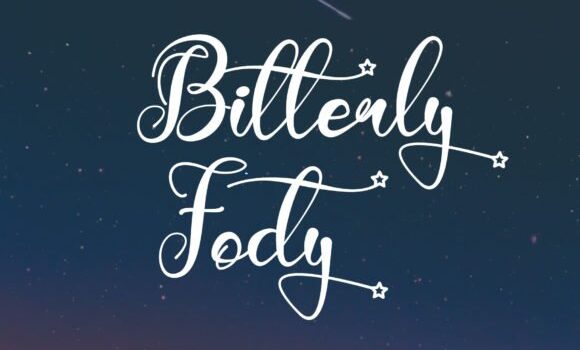
Bitterly Fody Font – Free Download Introduction to Bitterly Fody Font Bitterly Fody is a beautiful, well balanced and vintage styled script font. 📸 Preview Gallery 4 images 📌 Product Name Bitterly Fody Font 👤 Author Designvector10 📂 Category Explore